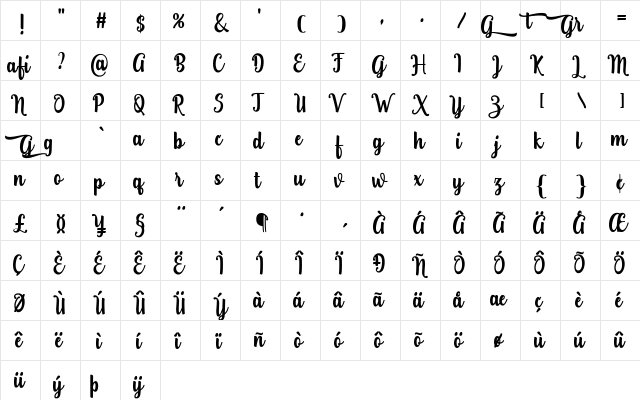
Grafiteg free Regular
Design Context for Grafiteg free Typeface
Grafiteg free is a composed and adaptable typeface that performs quietly and consistently across a wide range of design contexts.